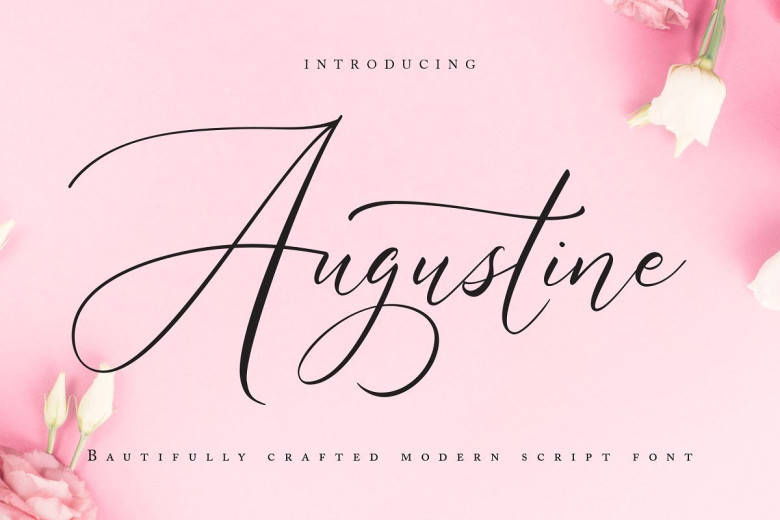
Augustine Calligraphy Script Font
Augustine Calligraphy Script Font with contemporary, sophisticated accents. It is perfect for branding, wedding invites and cards, and maybe for red wine label. Augustine font includes full set of gorgeous uppercase and lowercase letters, numerals, a large range of punctuation and ligatures.
All lowercase letters include beginning and ending swashes, that makes the font look fabulous. This font is free for PERSONAL USE. Link to purchase full version and commercial license: HERE